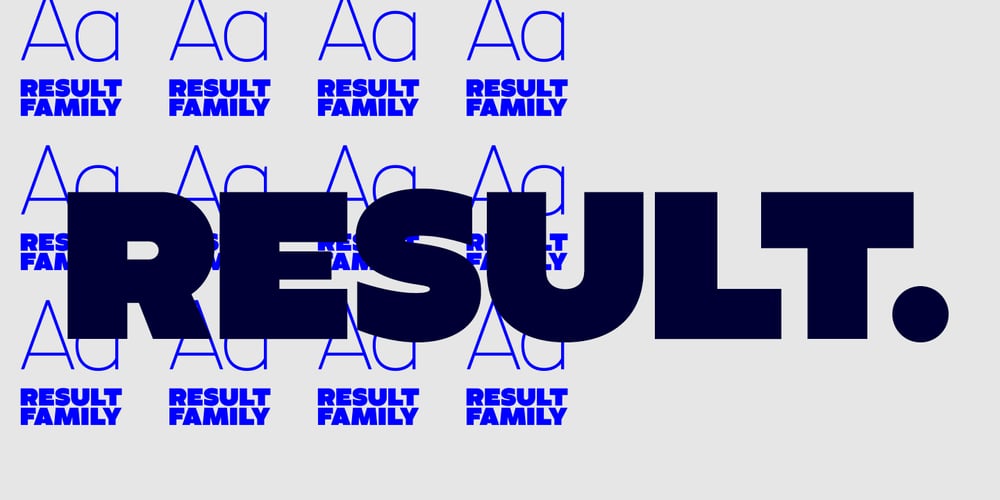
Result Font Family was designed by Jani Paavola and published by Cloud9 Type Dept. Result contains 3 styles and family package options. Result, a grotesque sans-serif, is a typeface well-suited for multiple purposes. It’s easy to find a suitable weight of Result for all kinds of needs, being very suitable for packaging and identity design, magazine and newspaper headlines, signage, you name it. Result fonts have an extended character set to support Central and Eastern European as well as Western European languages, as well as OpenType features such as fractions and ligatures.